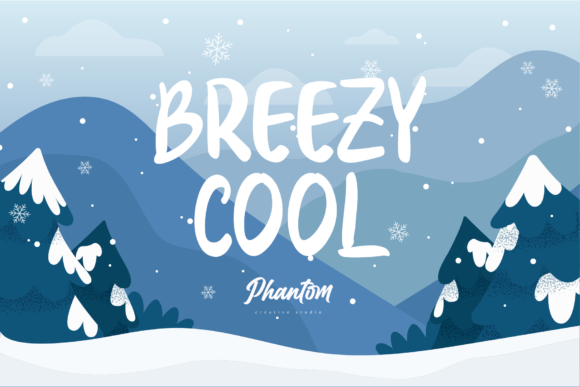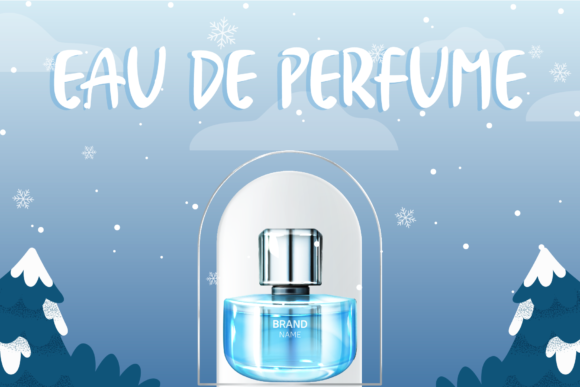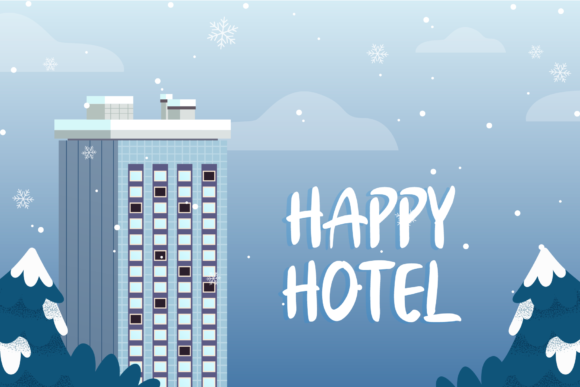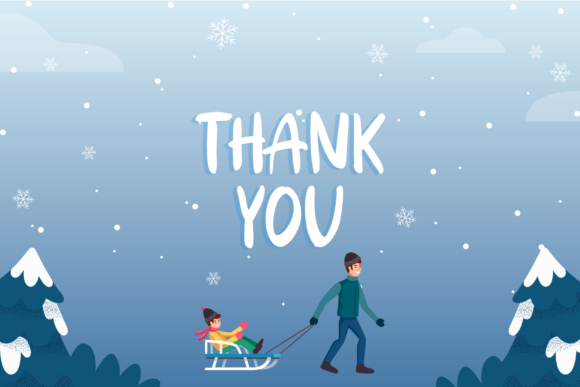
Breezy Cool Font
About Breezy Cool Font
Breezy Cool is a playful and crafty script font. Its thickness shows how this font can suit in various backgrounds. Get this font to find out how it will suit your designs!